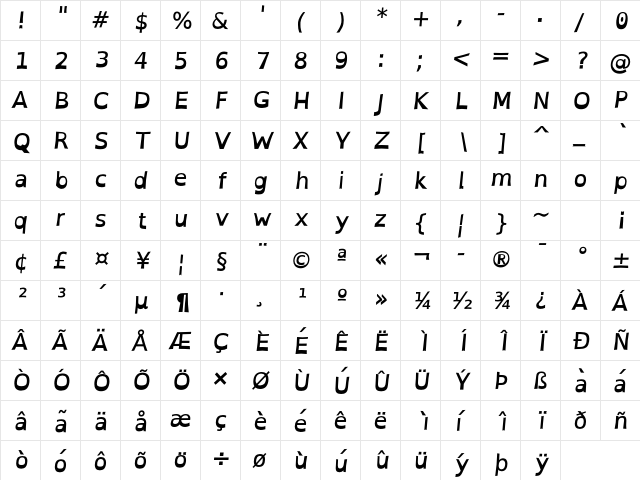
OpenDyslexic Bold Italic
| Designer | Abelardo Gonzalez |
Design Context for OpenDyslexic Typeface
OpenDyslexic offers clean, dependable letterforms without strong stylistic allegiance, making it a practical choice for designers who need flexibility. The dynamic lean of this cut emphasises speed and emphasis in any layout. Its bold stroke weight gives it real presence on the page.
Pro Tip: Try OpenDyslexic for annotation and caption copy alongside an upright companion — the contrast in angle creates a dynamic but ordered typographic system.